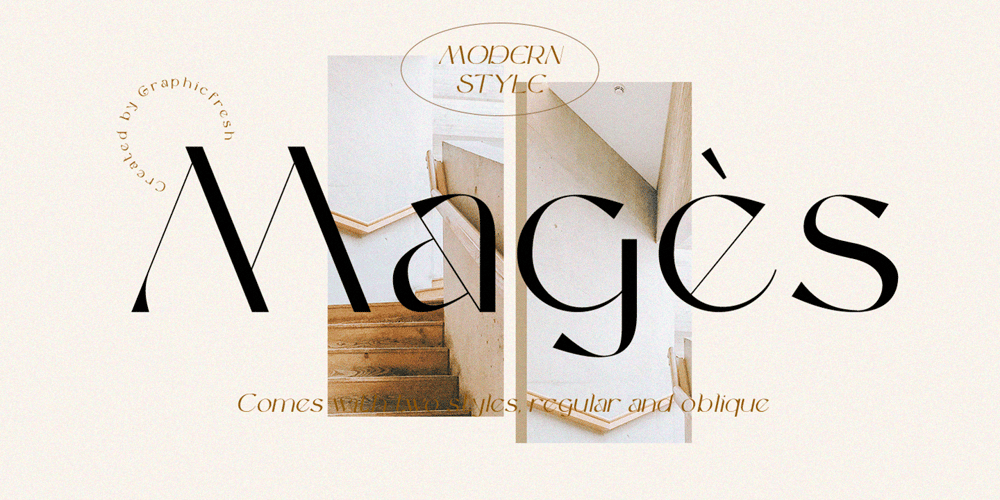
Mages Font Family was designed by Muhammad Husni Haikal and published by Graphicfresh. Mages contains 2 styles and family package options. Magès is a modern and elegant font. This font is made with a shape that sticks out more to the classics. So you’ll find this font emphasizes an artist’s feelings for his work. Masculin and feminine flavors are contained in this font. We created a different character for each letter so that it is easy to stick to the mind. Modern and minimalist character! it’s perfect for logos, name card, magazine layouts, invitations, headers, or even large-scale artwork.